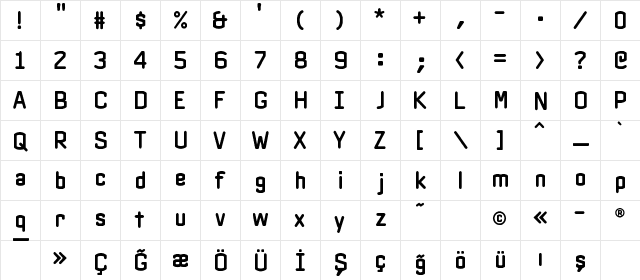
CSI Cream Source Inside Regular
Design Context for CSI Cream Source Inside Typeface
CSI Cream Source Inside offers clean, dependable letterforms without strong stylistic allegiance, making it a practical choice for designers who need flexibility.
Pro Tip: Use CSI Cream Source Inside in both headline and body roles to test its range before committing to a single application.